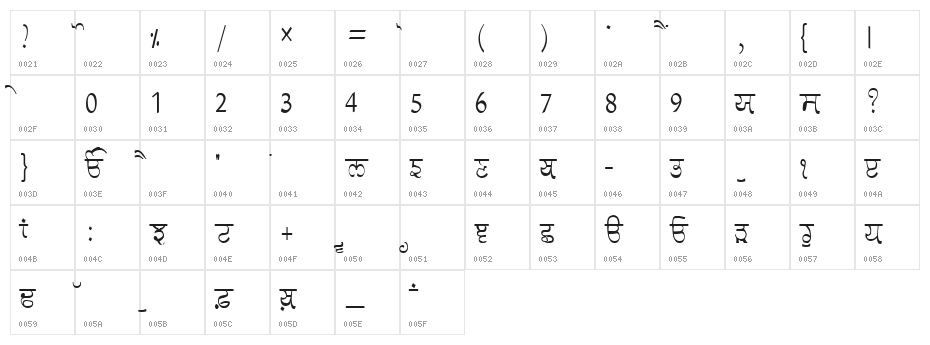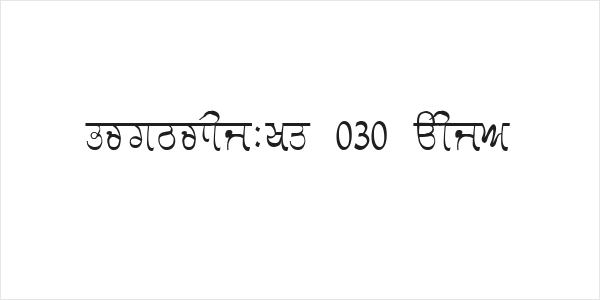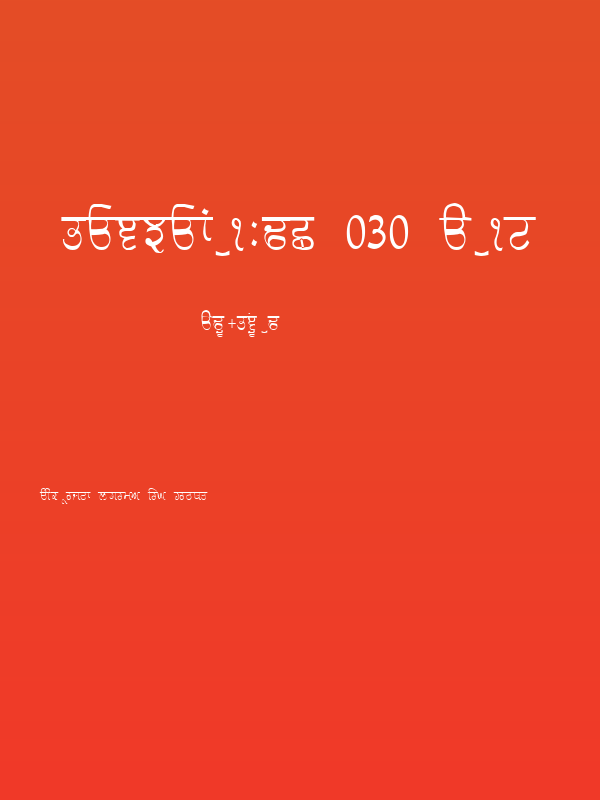
GurmukhiLys 030 Thin Font
GurmukhiLys 030 Thin Description
This font showcases the Gurmukhi script with a thin and elegant style. The characters are delicately crafted, maintaining a consistent stroke width that gives it a refined appearance. The numerals are clear and distinct, complementing the script's overall aesthetic. Special characters are included, adding versatility for various uses. The font's thinness contributes to a modern and sleek look, making it suitable for both digital and print media. Its design is clean, with a focus on readability and style, making it an excellent choice for projects that require a touch of sophistication.